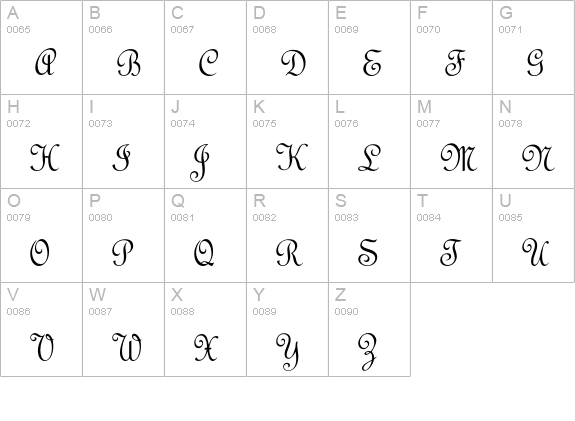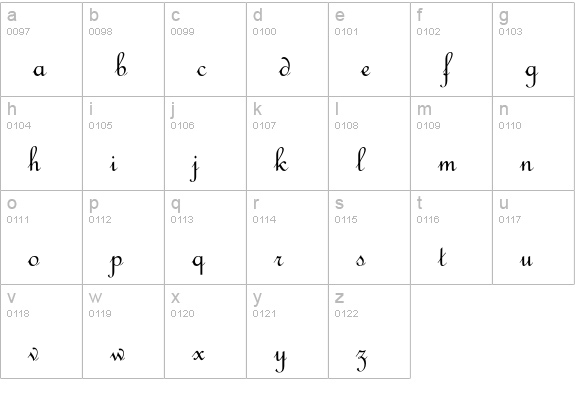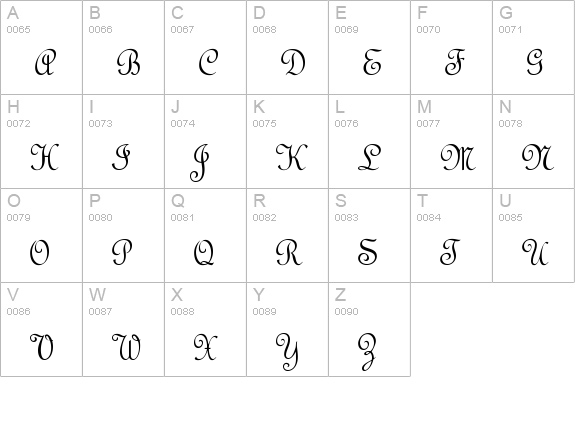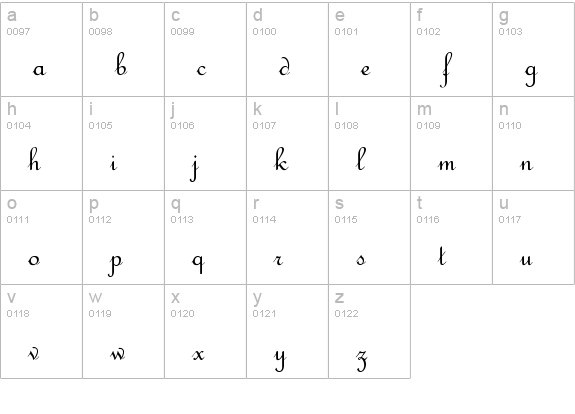
OPTIFrench-Script Font Details
OPTIFrench-Script is a stunning and elegant font that brings a touch of sophistication to any design project. With its flowing cursive style and delicate, intricate details, this font is perfect for adding a sense of romance and charm to invitations, cards, logos, and more. The graceful curves and unique flourishes of OPTIFrench-Script make it a versatile choice for both digital and print applications. The best part? OPTIFrench-Script is completely free to download at FontsMarket.com! This means you can easily access this beautiful font and add a touch of French-inspired flair to your creations without any cost. Whether you're a designer looking for a new script font to add to your collection or someone planning a special event and in need of a stylish typeface, OPTIFrench-Script is sure to impress with its timeless beauty and effortless charm. Download it today and elevate your designs with this exquisite font.